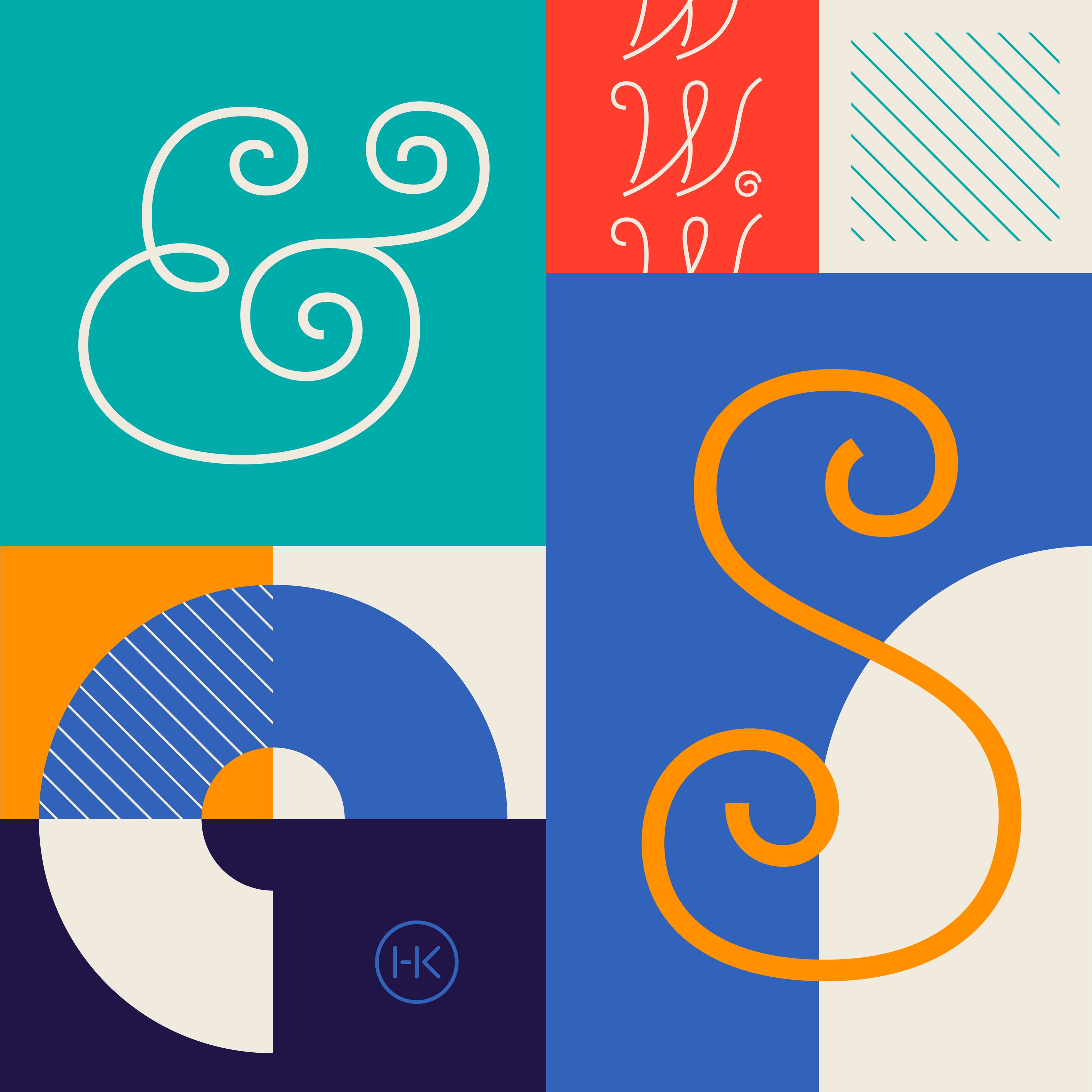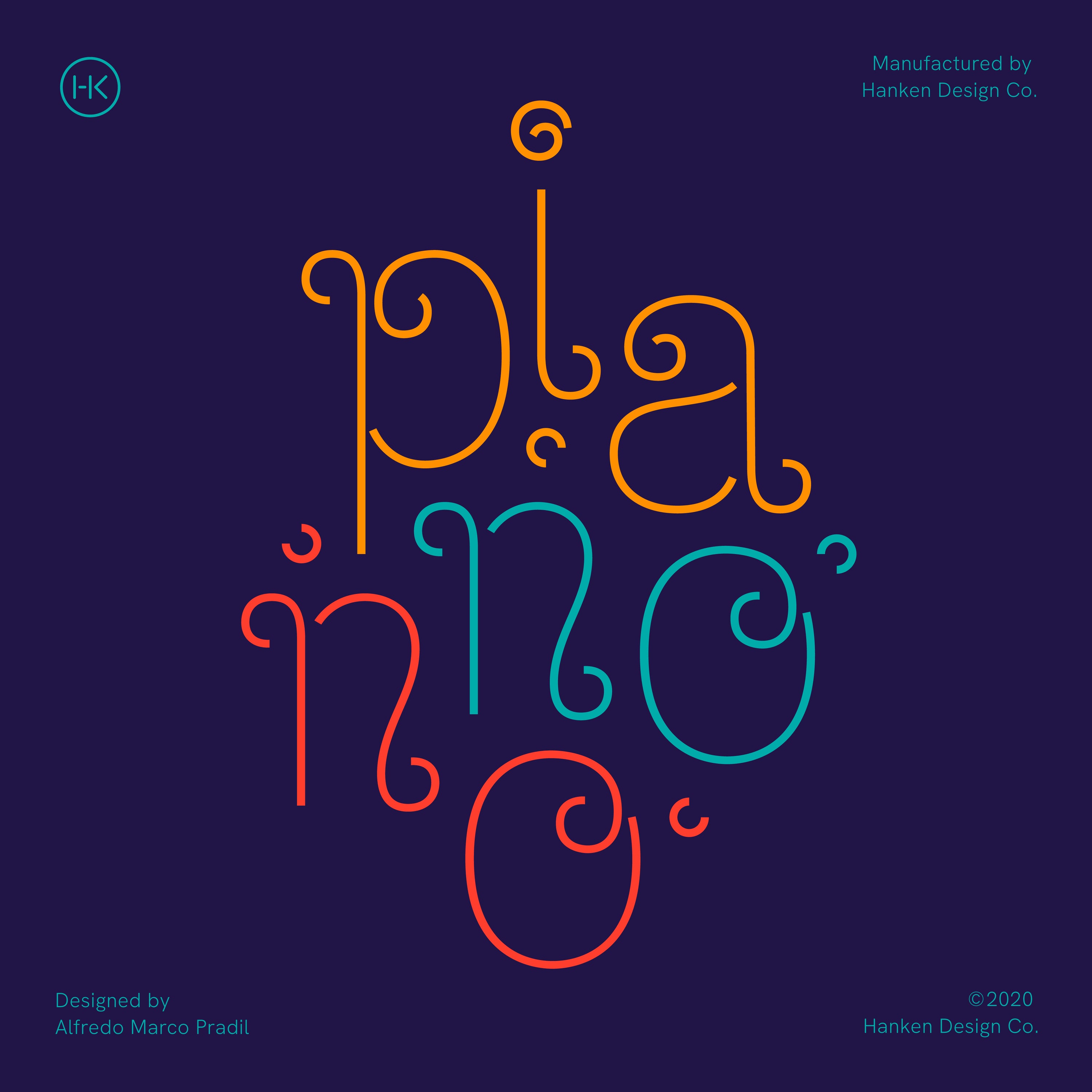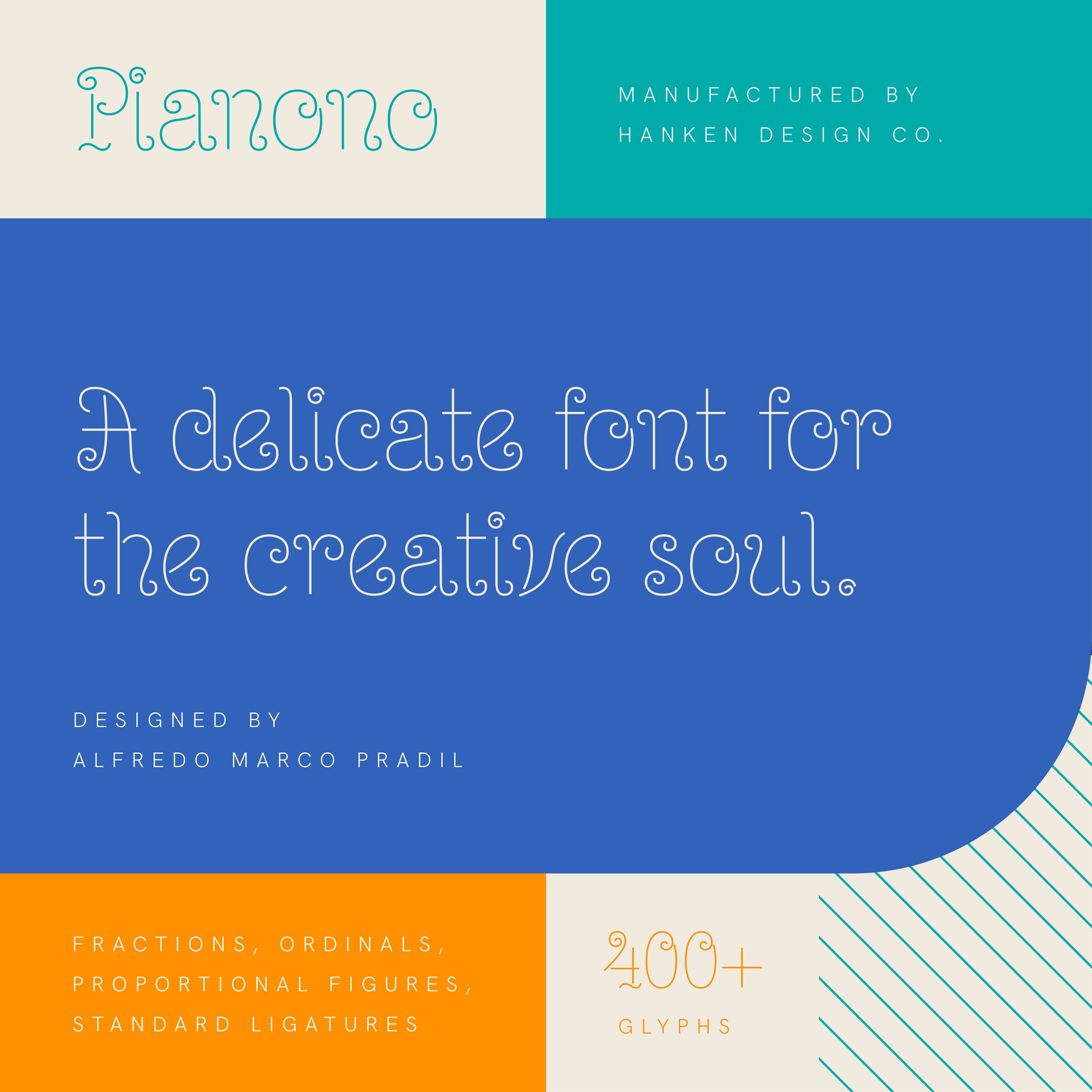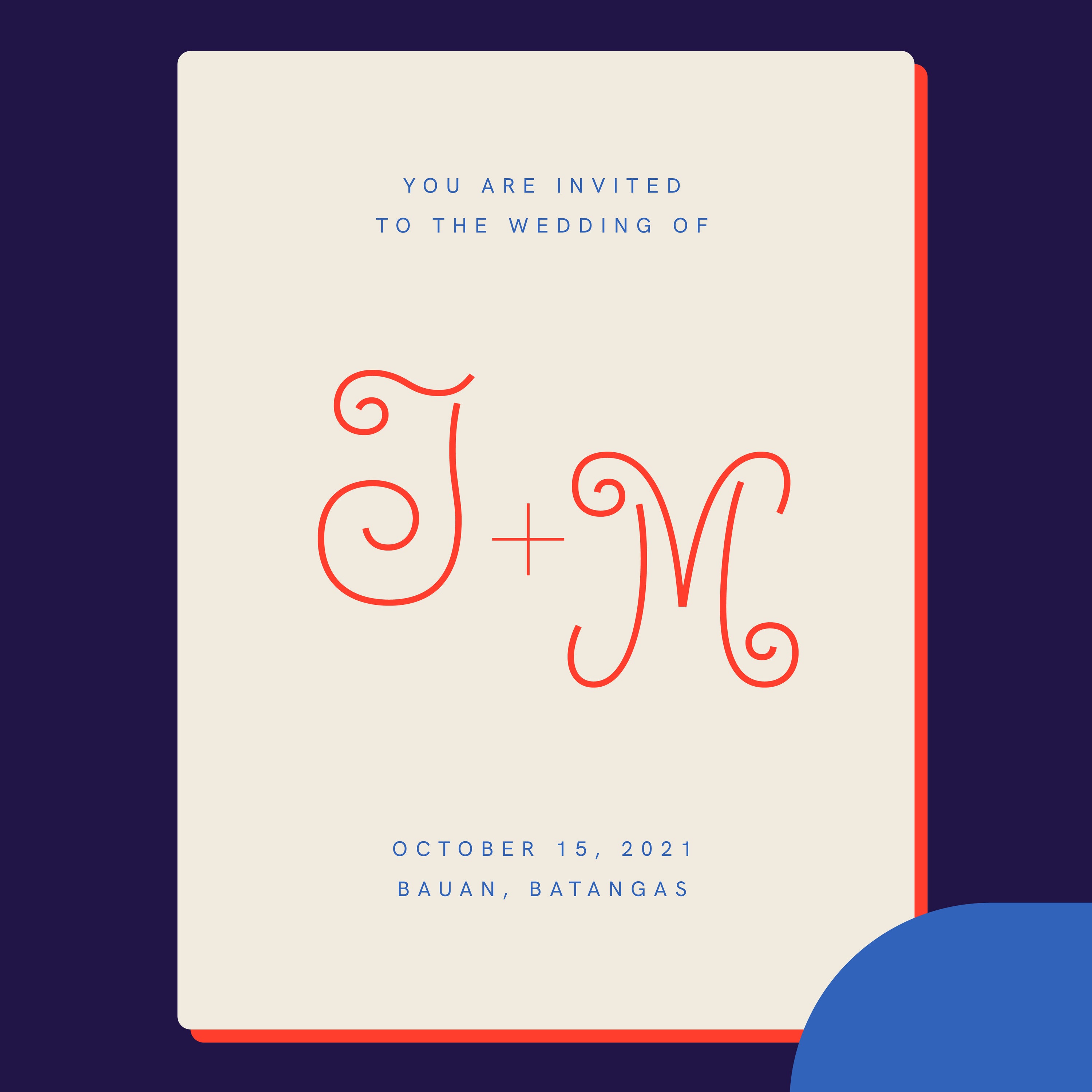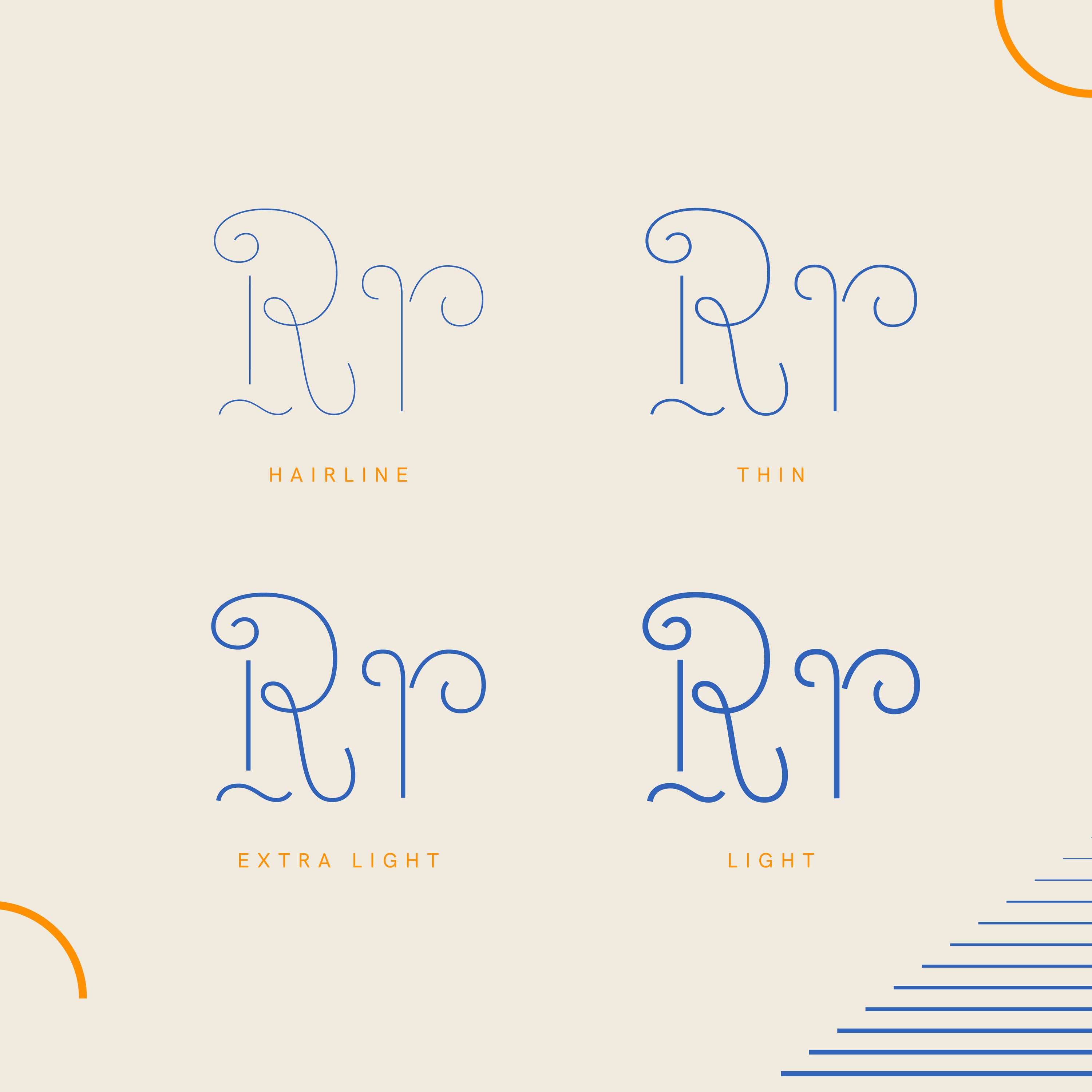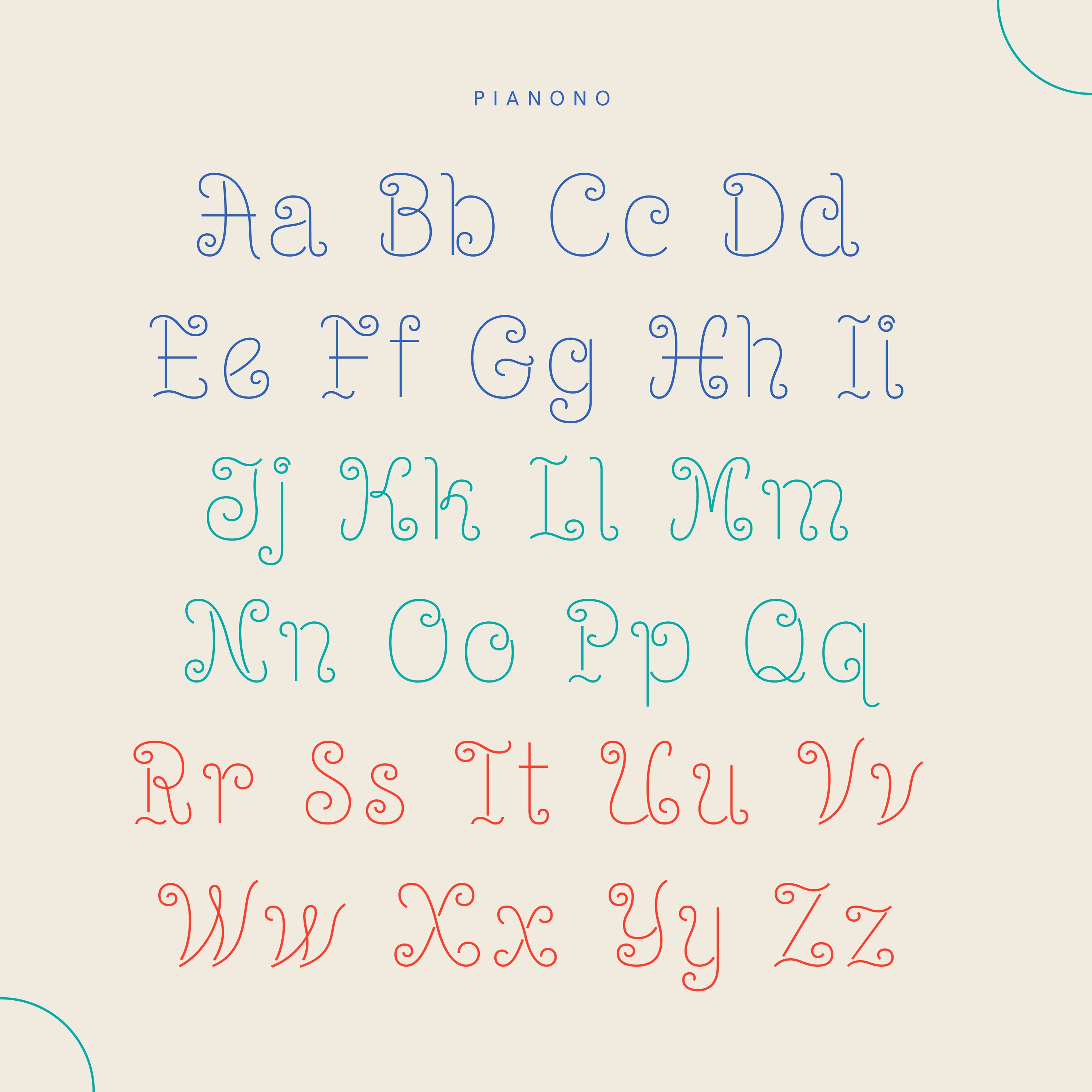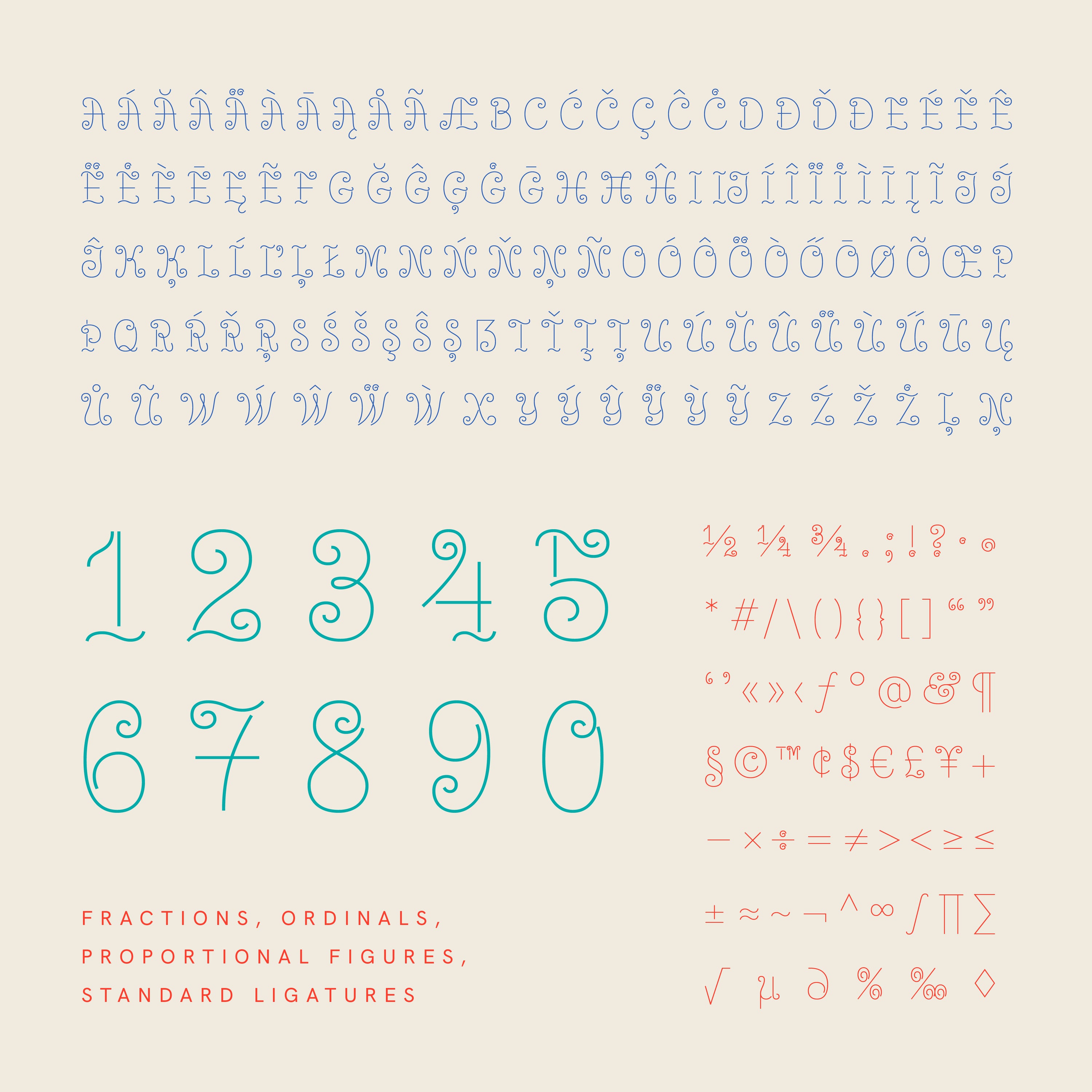
Pianono is a playfully simple typeface inspired by the classic dessert. Its rustic charm and historical touches make it visually appealing, while its unique spiral embellishments ensure readability with a touch of elegance. Each letter, number, and symbol features distinct curls, making the font endlessly engaging. You can enhance its versatility by experimenting with colors to evoke different flavors, allowing your creativity to shine through.